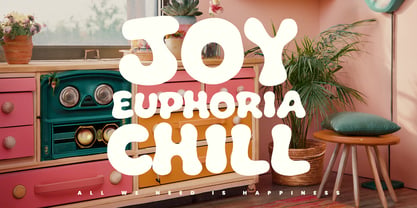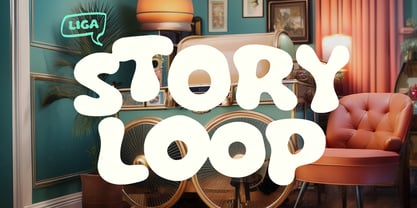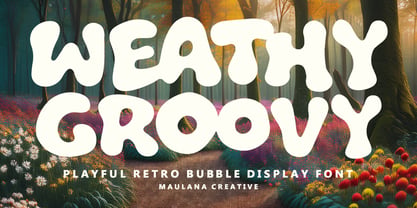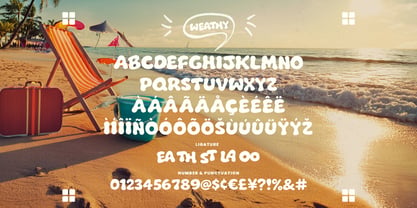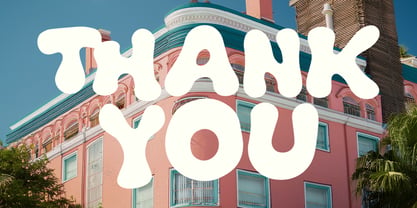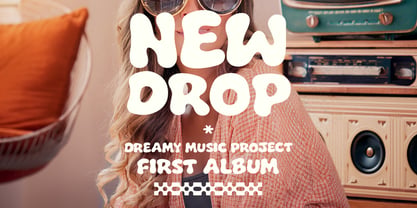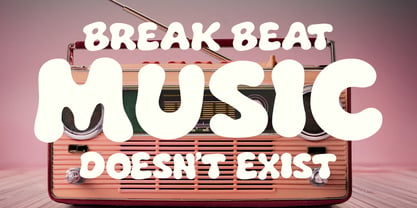
MC Weathy
by Maulana Creative
The MC Weathy Font Family was designed by Gilang Maulana and published by Maulana Creative. MC Weathy contains 1 styles. More about this family
Bring back the vibrant energy of the 70s with Weathy Groovy, a playful bubble display font designed to add a touch of nostalgia and joy to any project. Featuring soft, rounded edges and a bouncy rhythm, this font captures the essence of retro flower power aesthetics with a modern, clean finish. It comes packed with unique ligatures that allow the letters to flow together seamlessly, making it perfect for eye catching headlines, brand identities, and social media graphics. Whether you’re designing for a music festival, a children’s, or a vintage inspired line, Weathy Groovy provides that effortless, chill vibe that stands out in a crowd.
Designers: Gilang Maulana
Foundry: Maulana Creative
MC Weathy